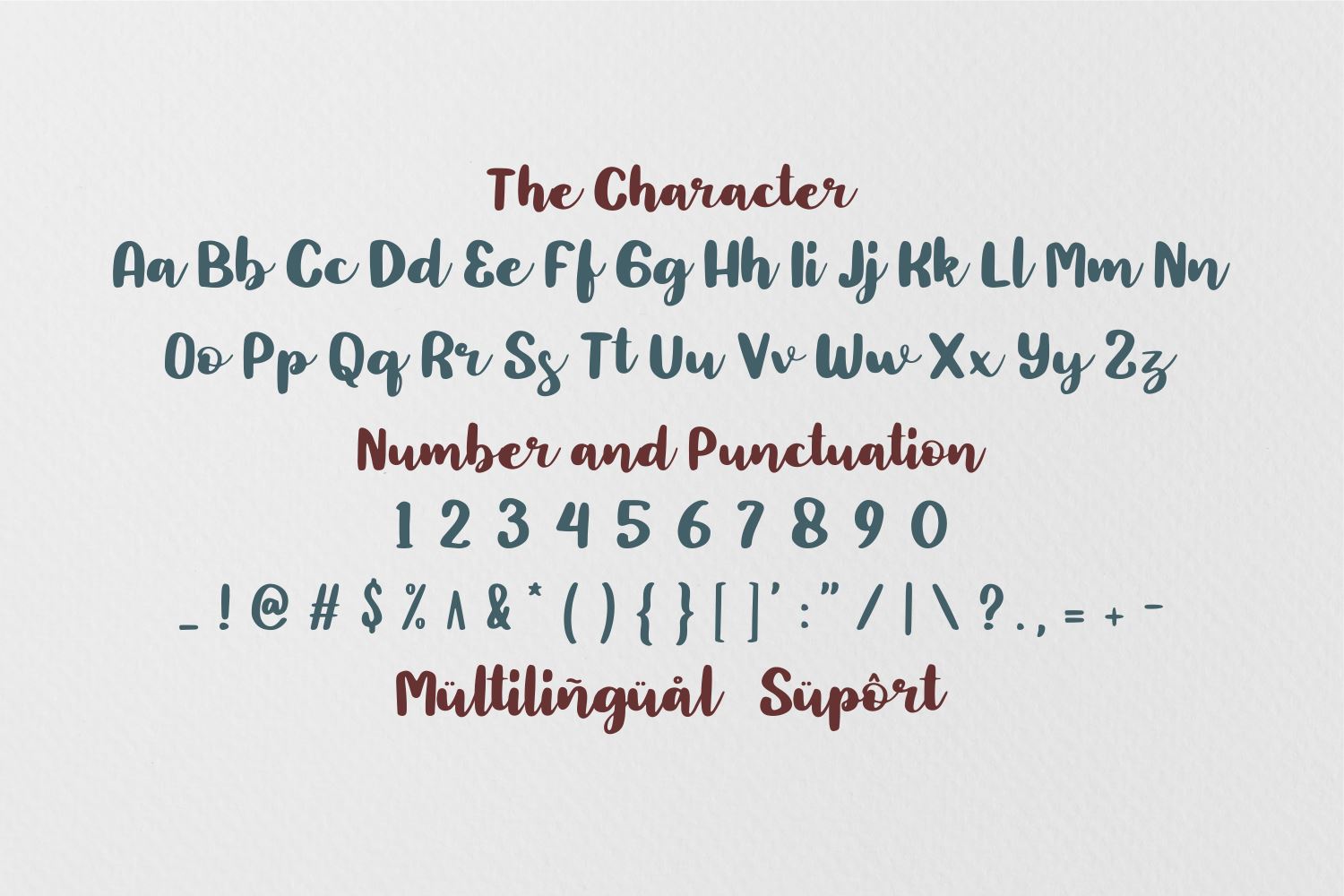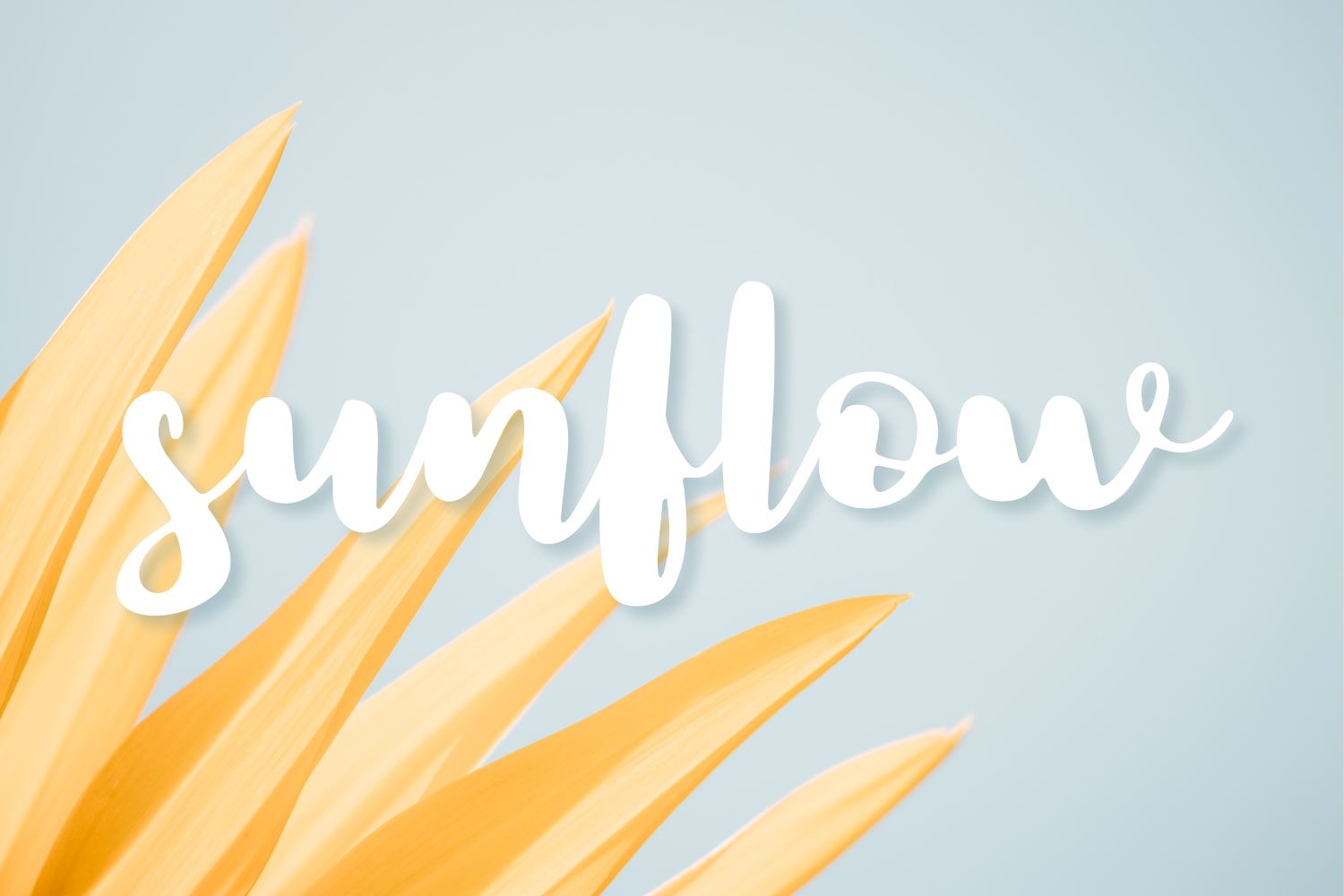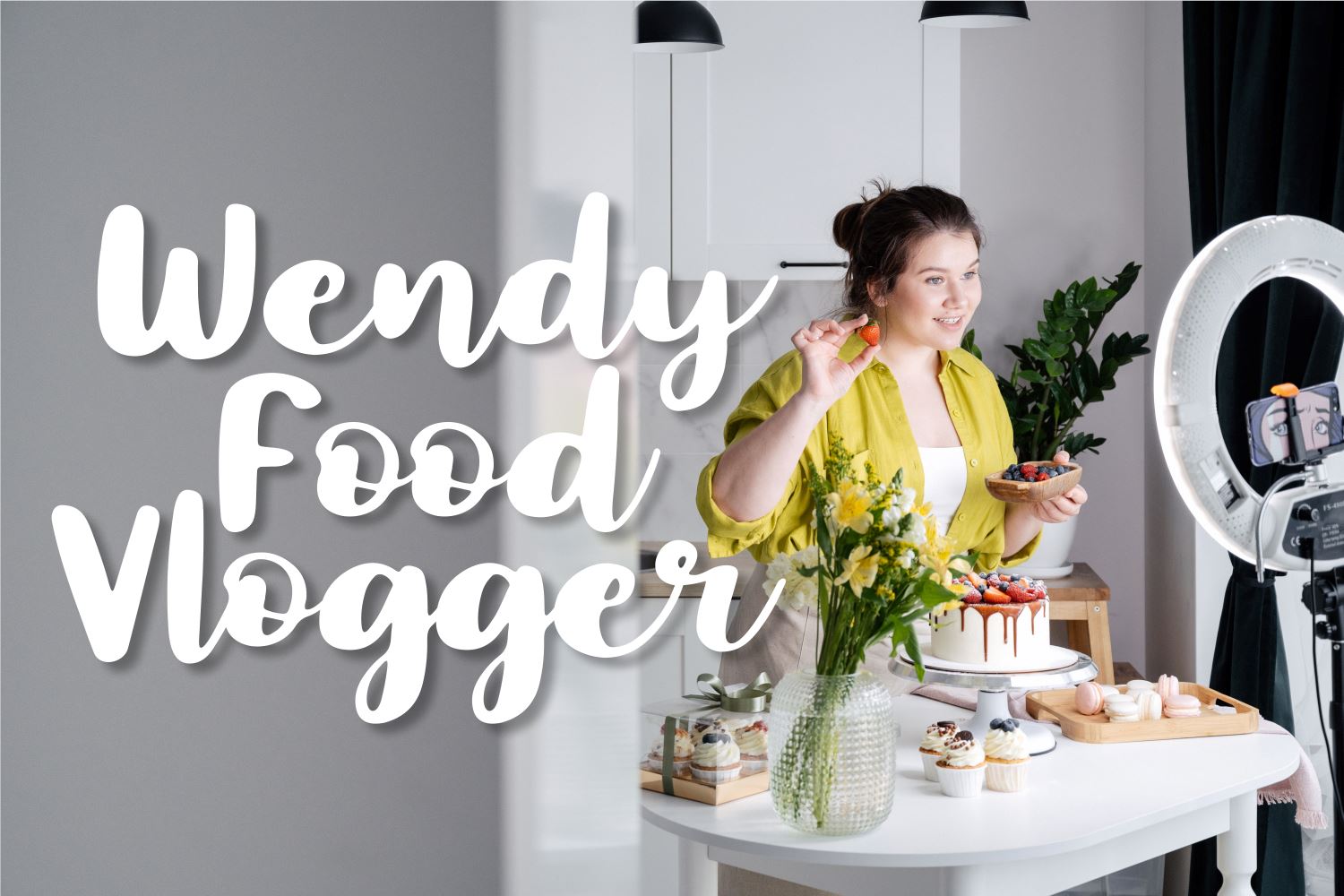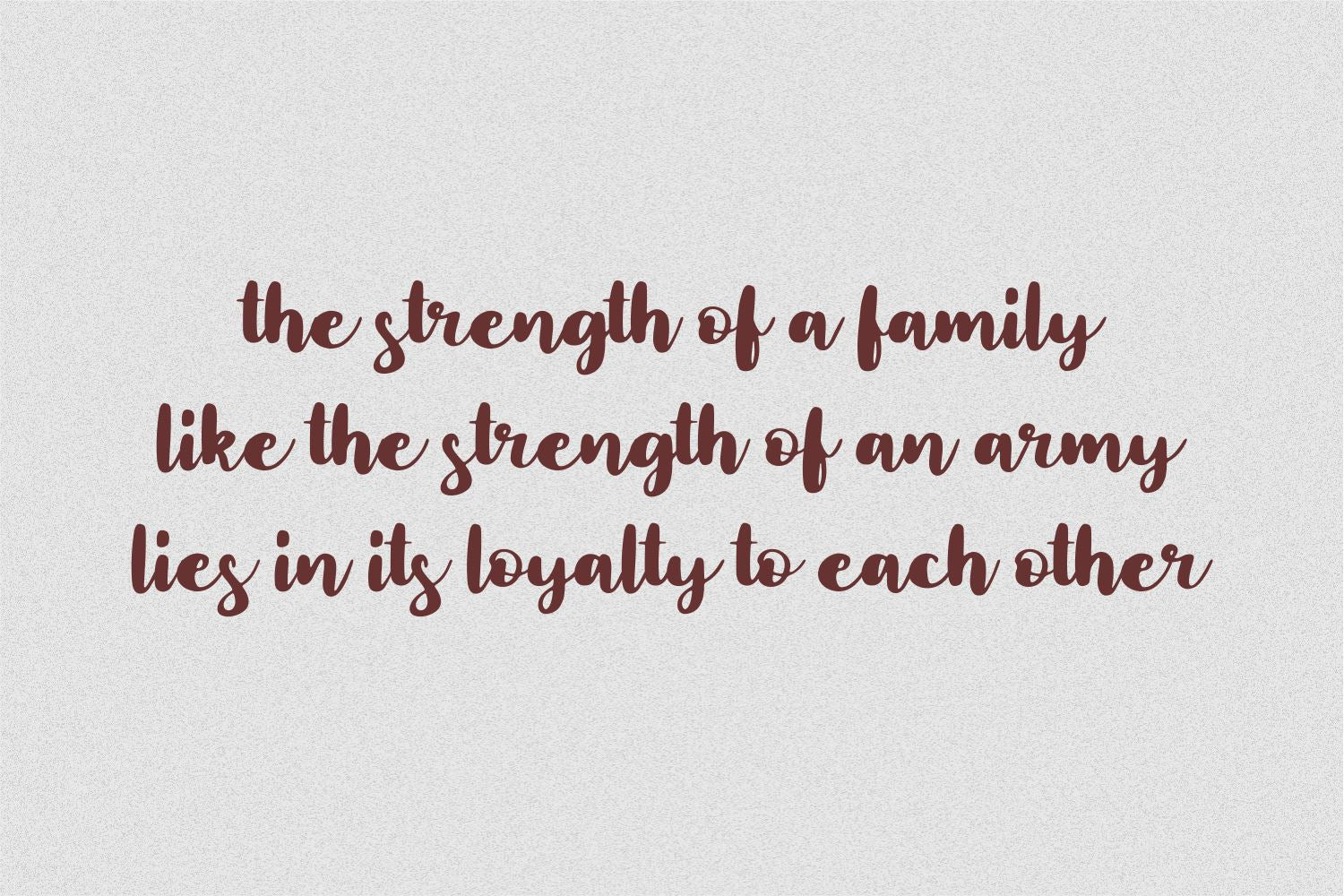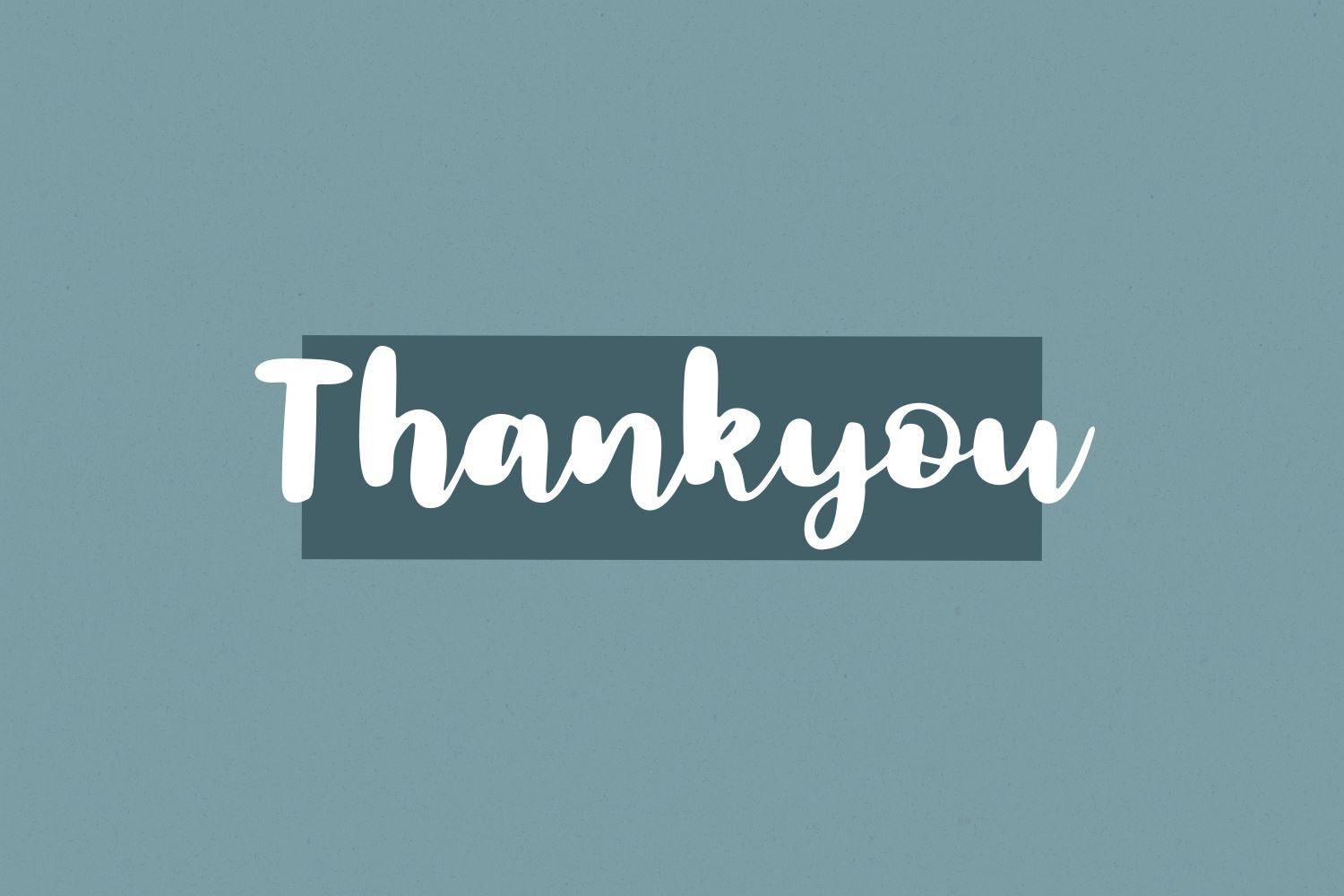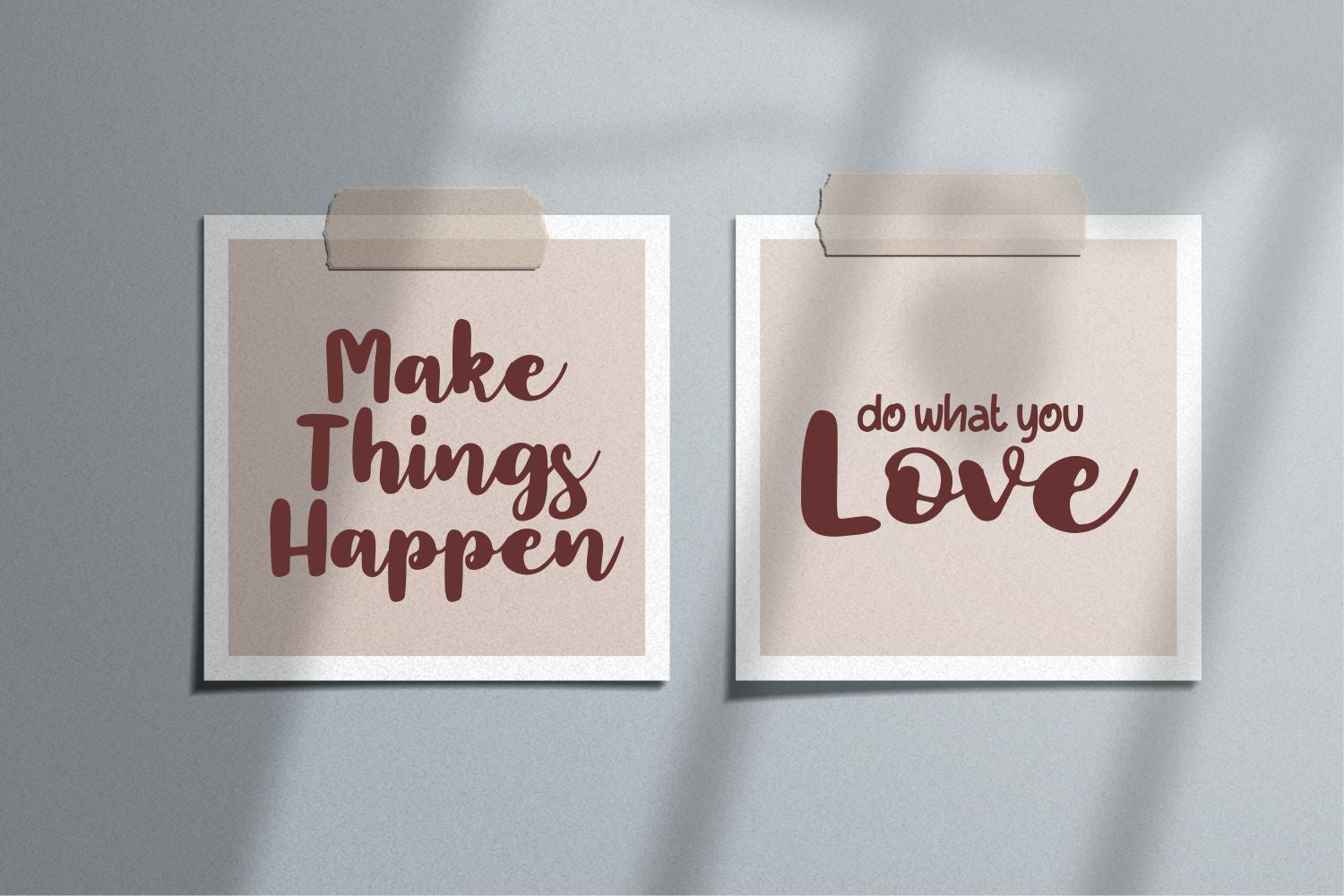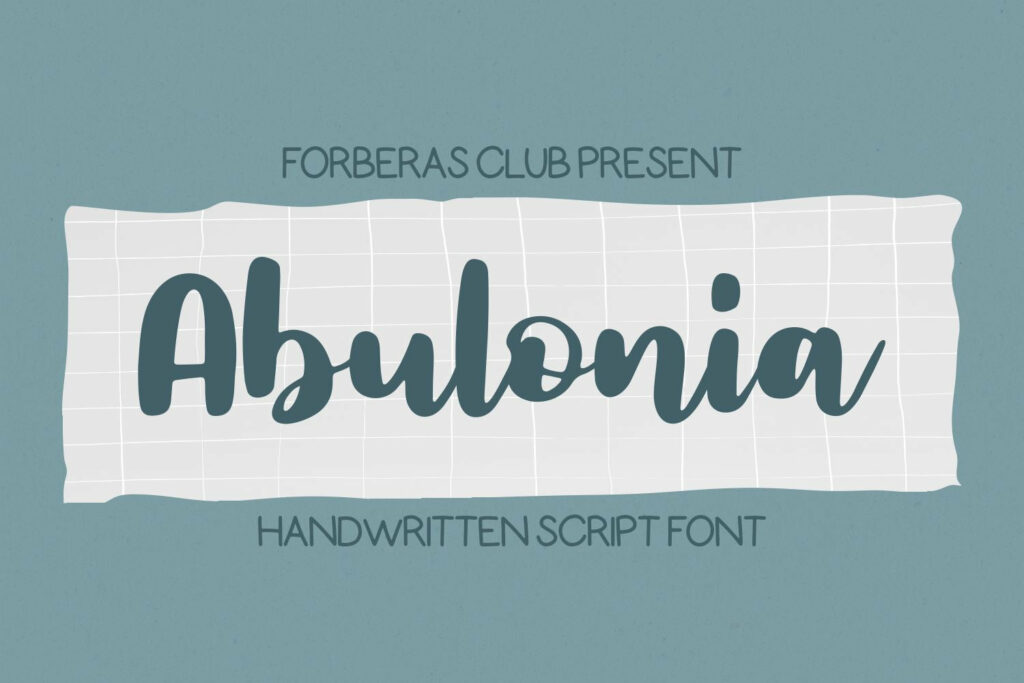
Abulonia
About Abulonia
Introducing Abulonia Font by Forberas Club Abulonia is a Modern Handwritten Font. Abulonia is perfect for book cover, product packaging, branding project, megazine, social media, kisd book fonts, or just used to express words above the background. This font includes TTF and OTF, This font also multilingual support.